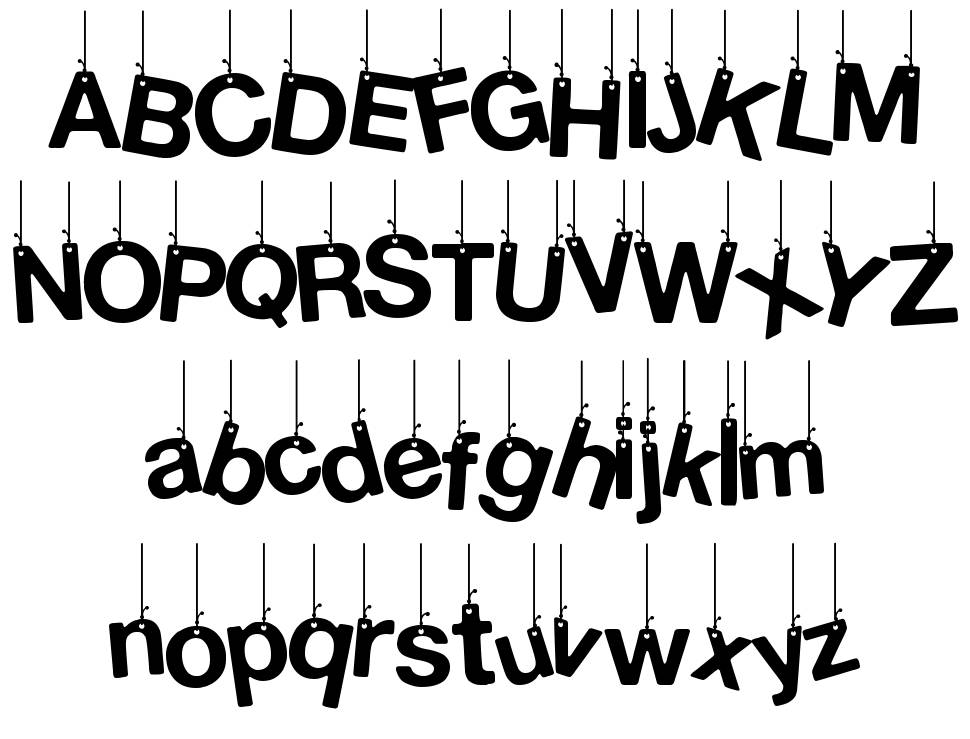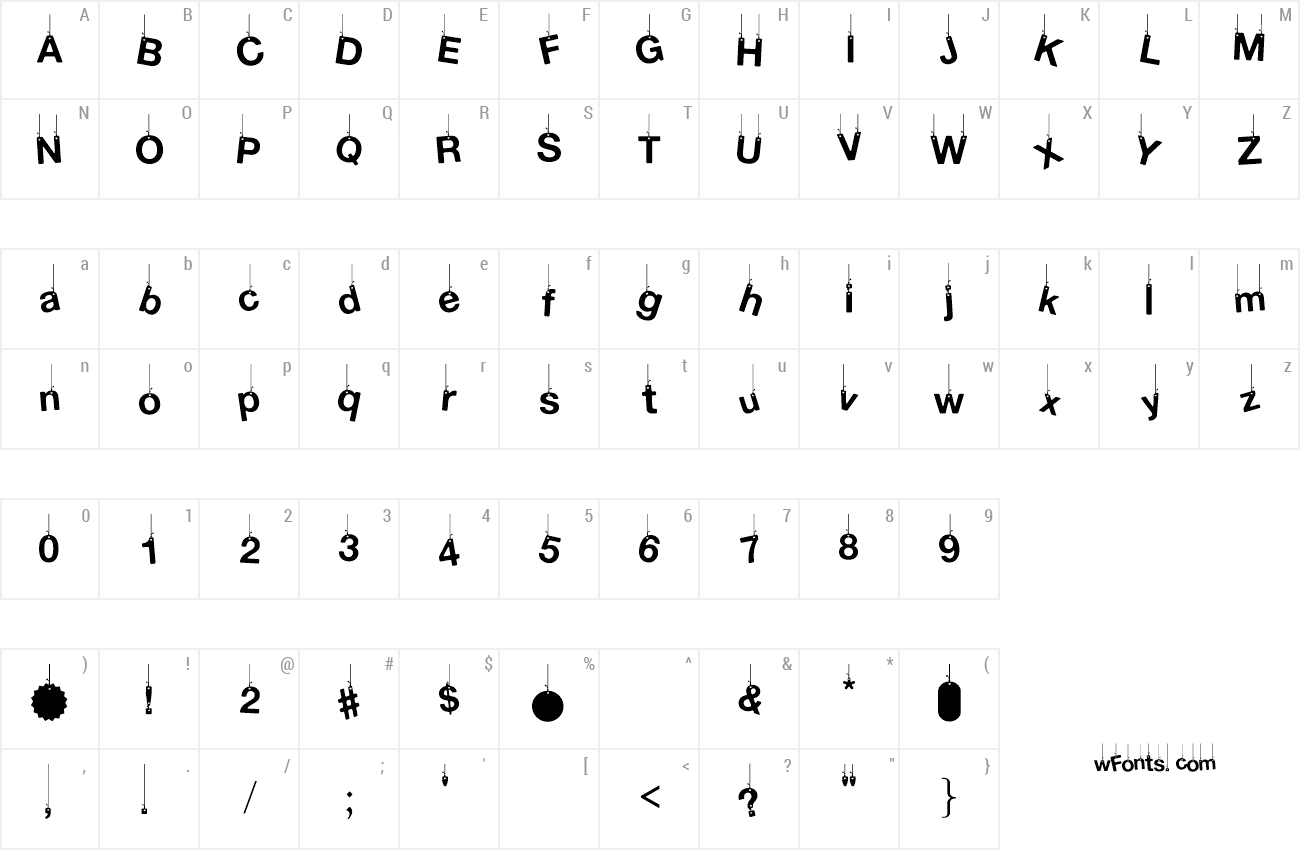
Hanging Letters Font
Hanging Letters Font - Web hanging letters font | dafont.com 10 matching requests on the forum hanging letters custom preview size hanging. Web download a free font for hanging letters with a vintage and distorted style. This font is designed by hareesh seela and licensed.
Web hanging letters font | dafont.com 10 matching requests on the forum hanging letters custom preview size hanging. This font is designed by hareesh seela and licensed. Web download a free font for hanging letters with a vintage and distorted style.
Web download a free font for hanging letters with a vintage and distorted style. Web hanging letters font | dafont.com 10 matching requests on the forum hanging letters custom preview size hanging. This font is designed by hareesh seela and licensed.
This font is designed by hareesh seela and licensed. Web download a free font for hanging letters with a vintage and distorted style. Web hanging letters font | dafont.com 10 matching requests on the forum hanging letters custom preview size hanging.
Hanging Letters font
Web hanging letters font | dafont.com 10 matching requests on the forum hanging letters custom preview size hanging. Web download a free font for hanging letters with a vintage and distorted style. This font is designed by hareesh seela and licensed.
Web download a free font for hanging letters with a vintage and distorted style. Web hanging letters font | dafont.com 10 matching requests on the forum hanging letters custom preview size hanging. This font is designed by hareesh seela and licensed.
Hanging Letters uppercase
Web hanging letters font | dafont.com 10 matching requests on the forum hanging letters custom preview size hanging. This font is designed by hareesh seela and licensed. Web download a free font for hanging letters with a vintage and distorted style.
Hanging Letters font by Hareesh Seela FontRiver
Web download a free font for hanging letters with a vintage and distorted style. This font is designed by hareesh seela and licensed. Web hanging letters font | dafont.com 10 matching requests on the forum hanging letters custom preview size hanging.
Web hanging letters font | dafont.com 10 matching requests on the forum hanging letters custom preview size hanging. This font is designed by hareesh seela and licensed. Web download a free font for hanging letters with a vintage and distorted style.
Hanging Letters Font
Web hanging letters font | dafont.com 10 matching requests on the forum hanging letters custom preview size hanging. This font is designed by hareesh seela and licensed. Web download a free font for hanging letters with a vintage and distorted style.
Hanging Letters Font
Web download a free font for hanging letters with a vintage and distorted style. Web hanging letters font | dafont.com 10 matching requests on the forum hanging letters custom preview size hanging. This font is designed by hareesh seela and licensed.
This Font Is Designed By Hareesh Seela And Licensed.
Web download a free font for hanging letters with a vintage and distorted style. Web hanging letters font | dafont.com 10 matching requests on the forum hanging letters custom preview size hanging.